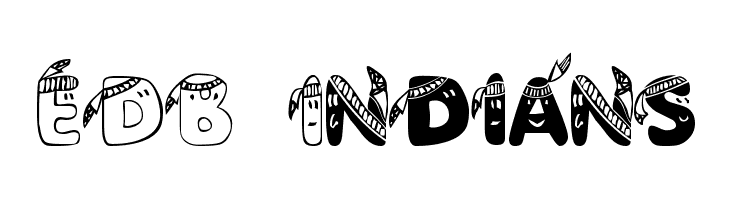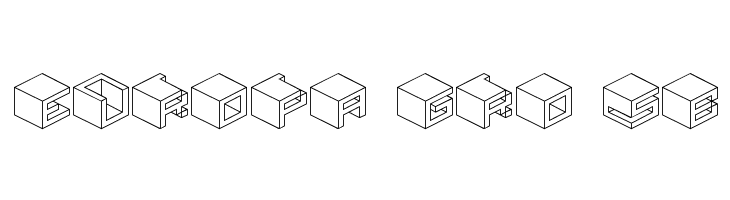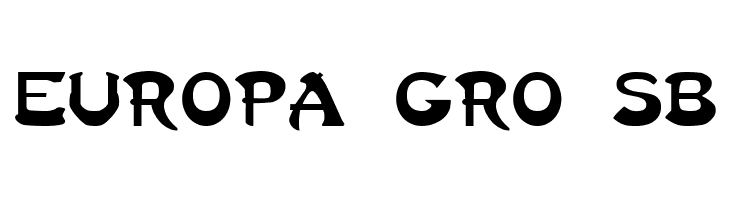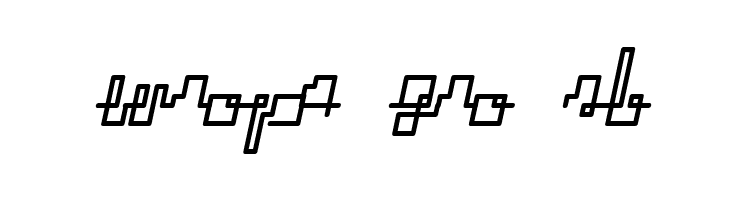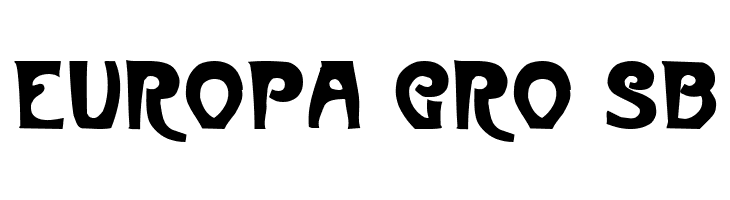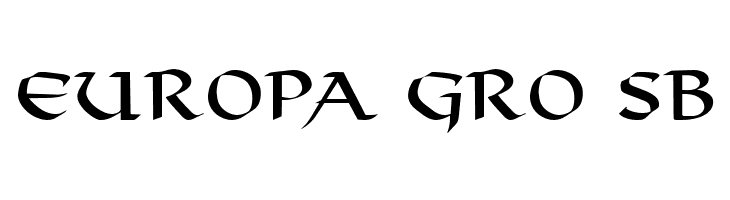
A 3D cubic font with characters formed by negative space, offering a futuristic and architectural style.
A bold and dynamic font with sharp edges and a distinctive flair.
An abstract, decorative font with geometric line patterns.
A bold, decorative font with playful and dynamic character shapes.
A bold, gothic font with sharp, angular edges and a dramatic style.
A decorative font with feather-like elements and bold outlines, ideal for creative projects.